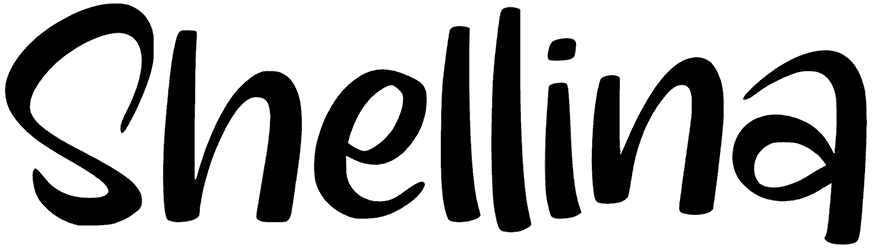
Shellina Font
Shellina, with two simple and snowy styles, can complete your collection and turn any project into something magical. This Christmas font has small decorations inside that give a playful look to your texts.
This script font is what makes it a great option for writing text on Christmas gifts or becoming a personal decoration in packaging and clothing design. So if you want to turn this project into something extraordinary, Shellina is one of the best tools for you.